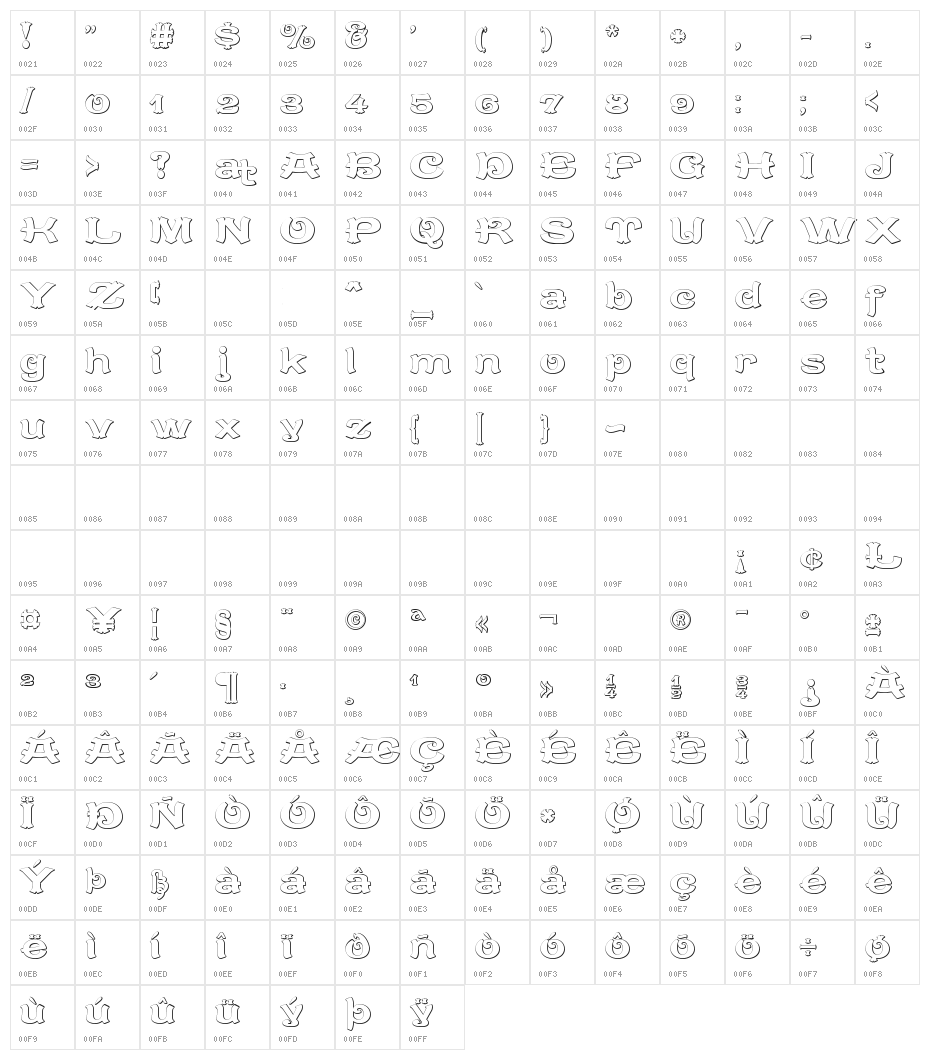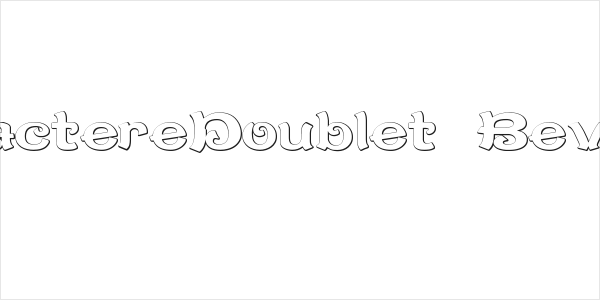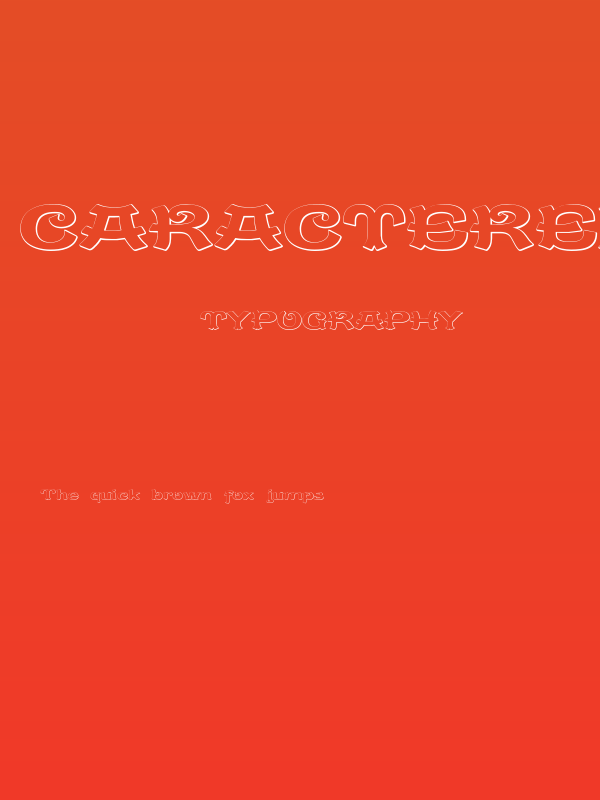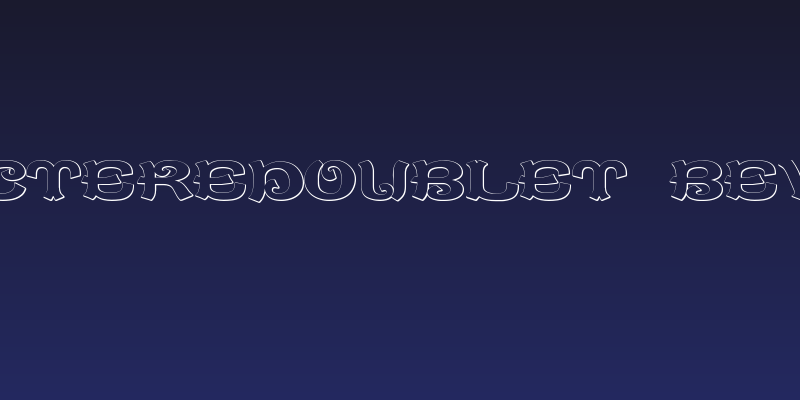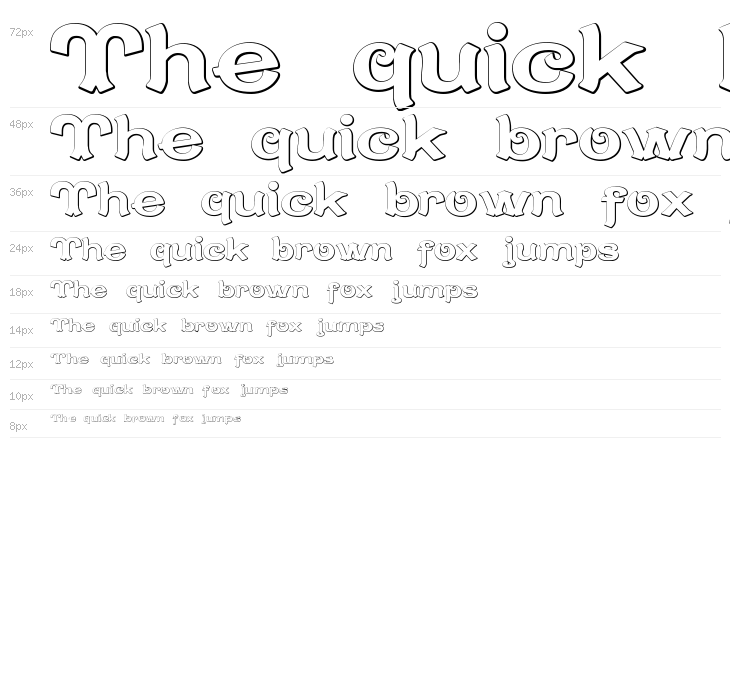
CaractereDoublet Beveled Font
CaractereDoublet Beveled Description
This font features a bold, decorative style with a beveled, three-dimensional appearance. Each character is outlined, giving it a shadowed effect that adds depth and visual interest. The uppercase and lowercase letters maintain a consistent design, with sharp angles and pronounced serifs that enhance its unique aesthetic. The numbers and special characters follow the same stylistic approach, ensuring uniformity across all glyphs. This font's distinct look makes it ideal for eye-catching designs where a strong visual impact is desired.